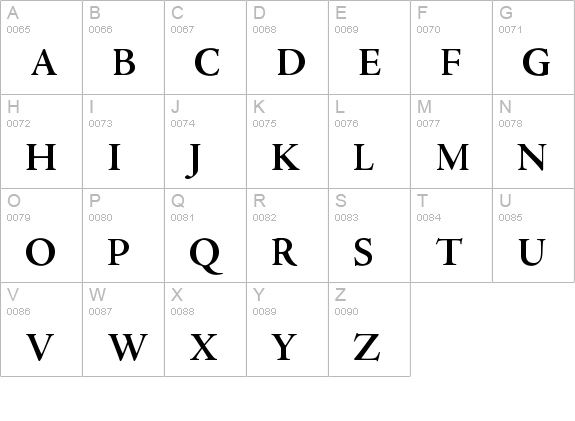
Adobe Jenson Pro Bold Subhead Font Details
Adobe Jenson Pro Bold Subhead is a strong, high-contrast variant in the Adobe typeface family \xE2\x80\x94 well suited to headlines, attention-grabbing titles, and strong calls-to-action.
Adobe Jenson Pro Bold Subhead font is a bold and commanding typeface designed to make a strong visual impact in subheadings and titles. With its elegant and sophisticated appearance, this font exudes a sense of professionalism and modernity. The sturdy letterforms and distinct character variations ensure excellent readability and legibility even at larger sizes. The Adobe Jenson Pro Bold Subhead font is a versatile choice for various design projects, such as editorial layouts, branding materials, and marketing collateral. Its bold weight adds emphasis and prominence to any text, making it perfect for drawing attention to important information. Moreover, this high-quality font is available for free download at FontsMarket.com, allowing designers and creatives to access and use it in their projects without any cost. Don't miss the opportunity to enhance your designs with the striking Adobe Jenson Pro Bold Subhead font, now easily accessible and ready to elevate your typographic compositions.